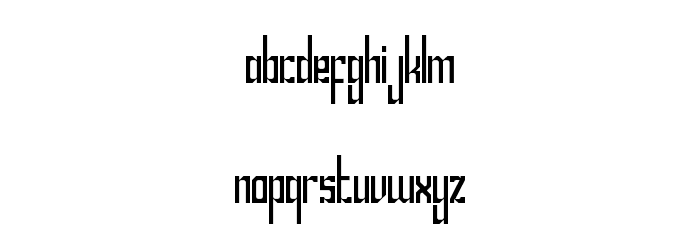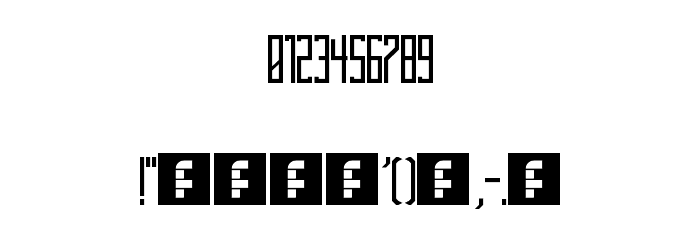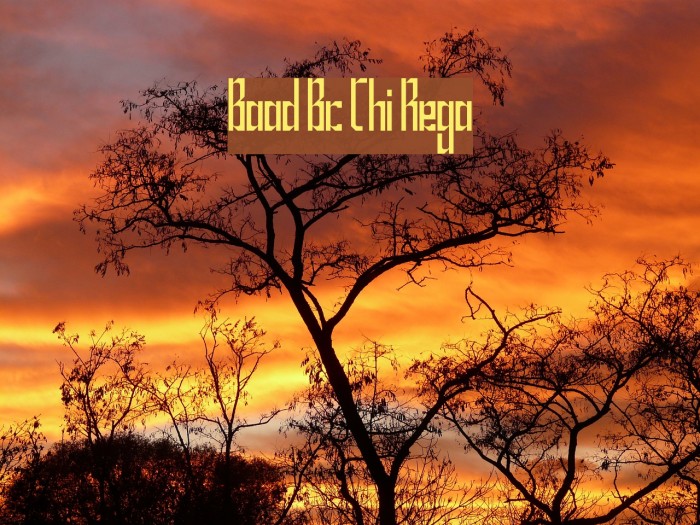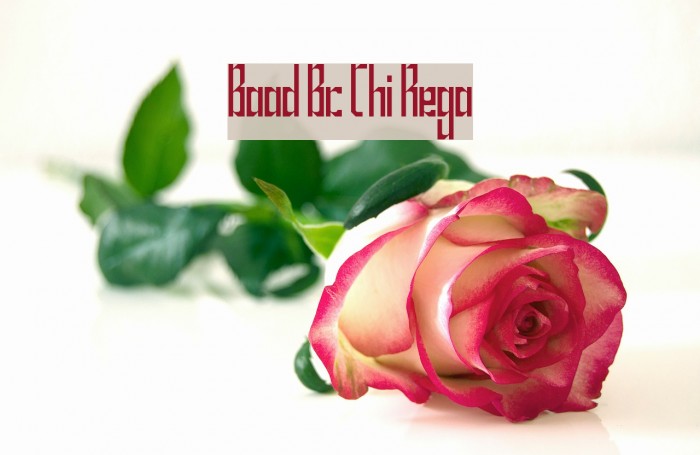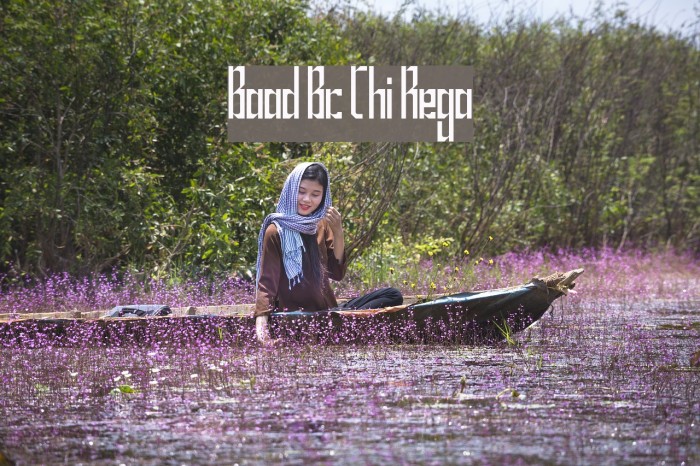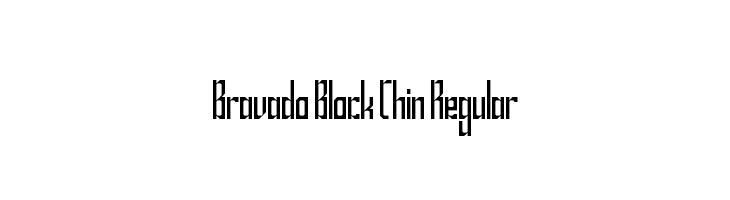
Bravado Block Thin Regular Font
This font features a distinct block-like structure with thin, elongated characters that give it a modern and edgy appearance. The uppercase letters are tall and narrow, maintaining a consistent height, while the lowercase letters follow a similar pattern but with a slight variation in height to accommodate ascenders and descenders. The numerals are uniform in width, matching the overall geometric style of the font. Special characters are designed to complement the alphanumeric set, maintaining the same thin and structured aesthetic. This font's unique style makes it stand out, offering a contemporary look that is both stylish and functional.
A modern, thin, block-style font with a geometric and structured appearance.
- Proposed Projects: Ideal for branding, modern posters, digital media, and any project requiring a contemporary and stylish typeface.
- Weight: Light
- Character Spacing: Tight